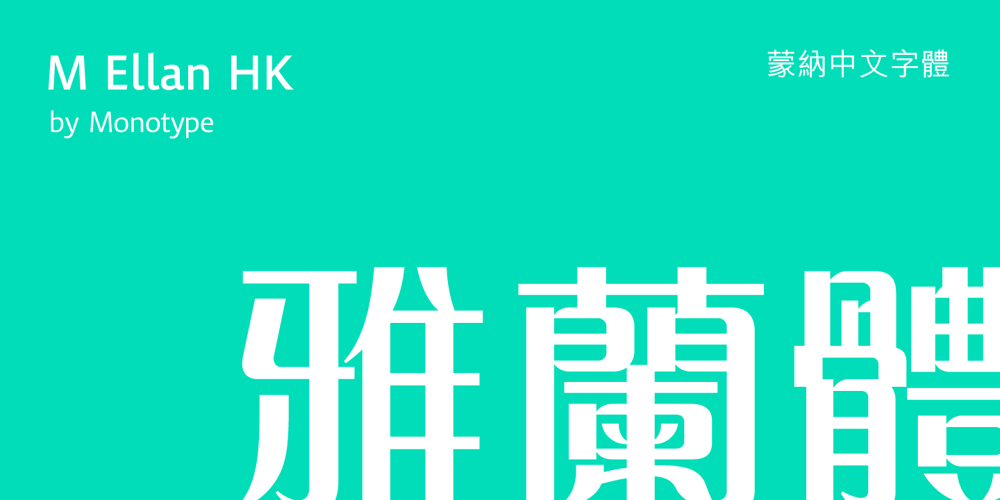
M Ellan HK Font Family was designed by Monotype HK Design and published by Monotype HK. M Ellan HK contains 3 styles and family package options. M Ellan HK is a soft yet robust typeface that strikes an appropriate balance between vertical and horizontal strokes (豎、橫). Finials of strokes are sharp but gentle, alluding to the appeal of calligraphy. It is elegant as well as contemporary. M Ellan Light features similar thickness in vertical and horizontal strokes (豎、橫) that together make it lucid and appealing, while thickness of strokes in M Ellan Bold are accordingly adjusted to maintain its friendly and graceful character.